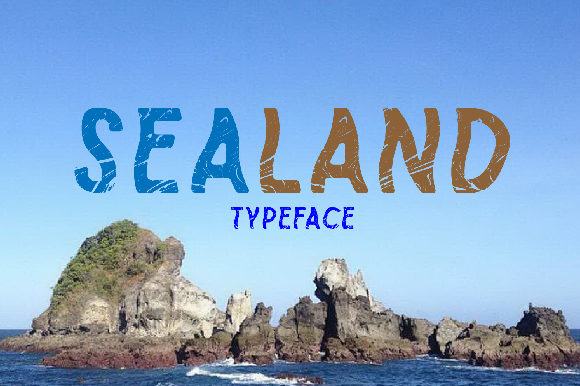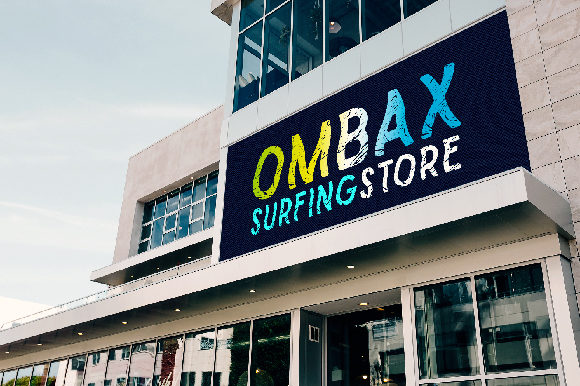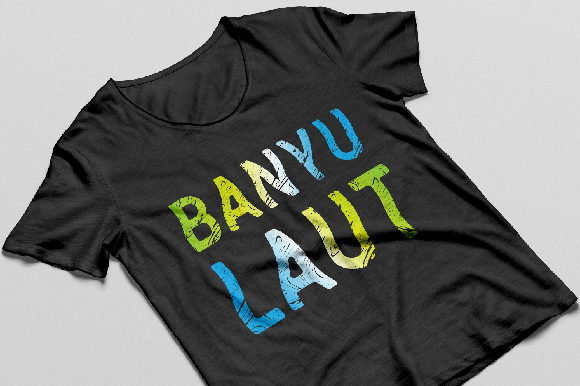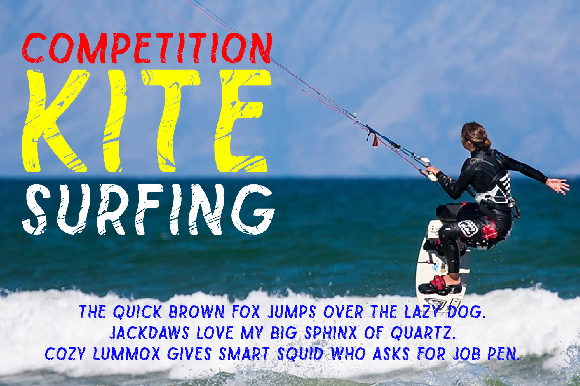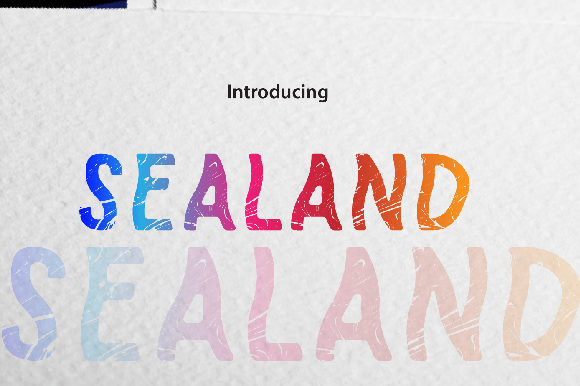
Sealand Font
Looking for a fresh font with a sporty and unique feel? Sealand is the perfect font for any project that needs a maritime touch. Note! This product is a color font (Opentype-SVG) and is compatible with PhotoShop, Illustrator, Silhouette, and Inkscape. The OTF and TTF files of this product are not compatible with Cricut. For more information on how to use this type of font please check our